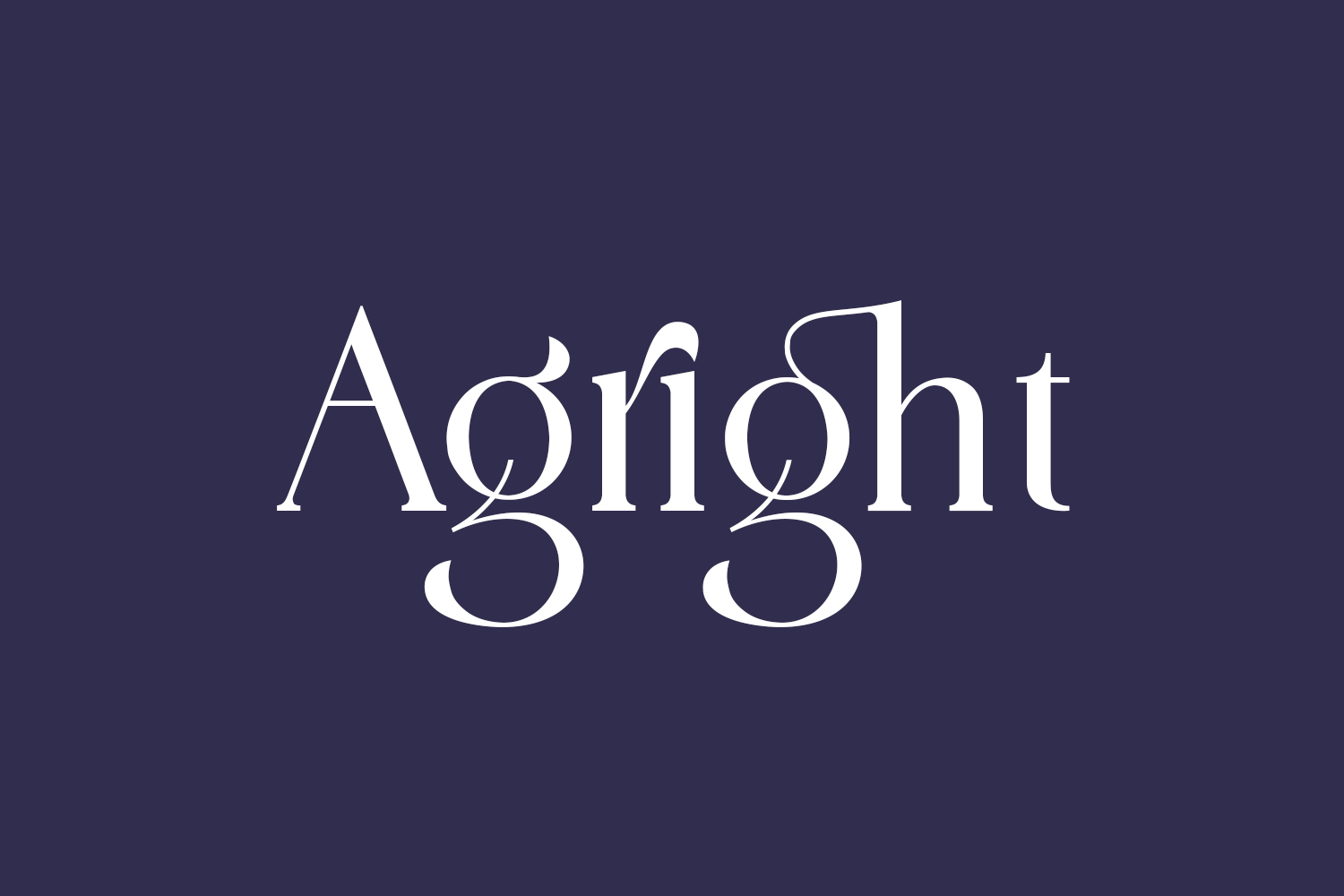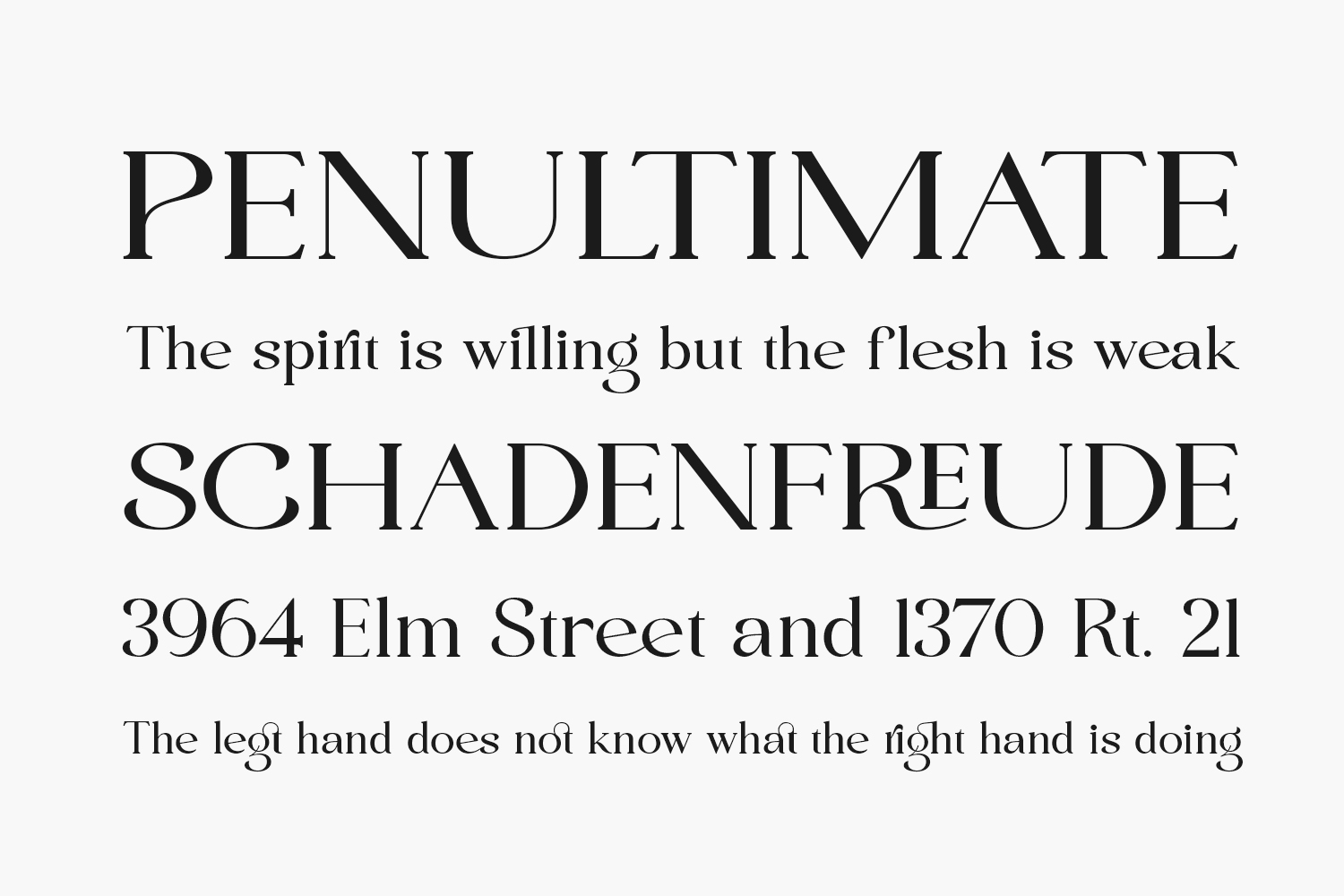
Agright Free Font is a bold, stylish and cool serif font. Agright Free Font is free for personal use only. Please purchase the full version for commercial use.